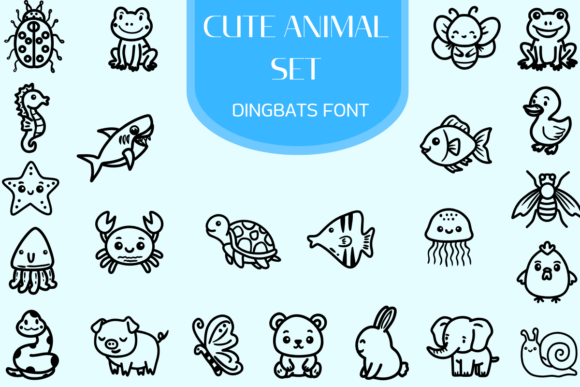
Bringing Whimsy to Your Designs: The Magic of Cute Animal Set Font
You know that moment when you’re working on a project and you just need something to spark some creativity? Maybe it’s a kids’ book, a birthday card, or a social media post – and you’re stuck for inspiration. That’s when I turn to my trusty font collection, and more often than not, I find myself drawn to the adorable characters of Cute Animal Set Font.
This charming dingbats font is designed to bring a playful and precious touch to your keyboard. With its hand-drawn animal icons, bold outlines, and kawaii expressions, Cute Animal Set Font is perfect for designers looking to add a touch of whimsy to their projects. Whether you’re creating children’s stationery, classroom rewards, or social media graphics, this font is sure to bring a smile to your face and a spring to your creative step.
What sets Cute Animal Set Font apart is its versatility and consistency. With a friendly personality and consistent line weight, this font is a valuable addition to any designer’s toolkit. It’s the perfect choice for designers who want to create high-impact, sweet-and-simple designs that are sure to delight their audience.
Cute Animal Set Font Key Features
- Unique Character Set: The Cute Animal Set Font features a wide range of adorable animal characters, including cats, dogs, birds, and more, making it perfect for designers who want to add a playful touch to their projects.
Cute Animal Set Font Review
I recently had the chance to work with the Cute Animal Set Font, and I must say it’s a delightful addition to any design project.
- Unique and Adorable Characters: The Cute Animal Set Font features a range of quirky and cute animal characters that can add a playful touch to any design.
- Perfect for Children’s Content: The font is ideal for creating engaging content for kids, such as children’s books, educational materials, and even social media posts.
- Customizable: The font allows for customization, enabling designers to adjust the size, color, and style to suit their specific needs.
- Limited Character Set: While the font has a decent range of animal characters, it lacks the diversity and variety needed for more complex designs.
- Not Ideal for Formal Content: Due to its playful nature, the Cute Animal Set Font may not be suitable for formal or professional content, such as business reports or technical documents.
The Cute Animal Set Font is a charming and whimsical addition to any design project. While it has its limitations, it excels in adding a touch of playfulness and personality to designs aimed at children or younger audiences. I would recommend this font for designers looking to create engaging and fun content for kids, but with caution for more formal or complex designs.
The Cute Animal Set Font is perfect for:
- Animal-themed marketing materials.
- Cute and playful social media posts.
For optimal results, use the font in combination with cute animal graphics and illustrations.